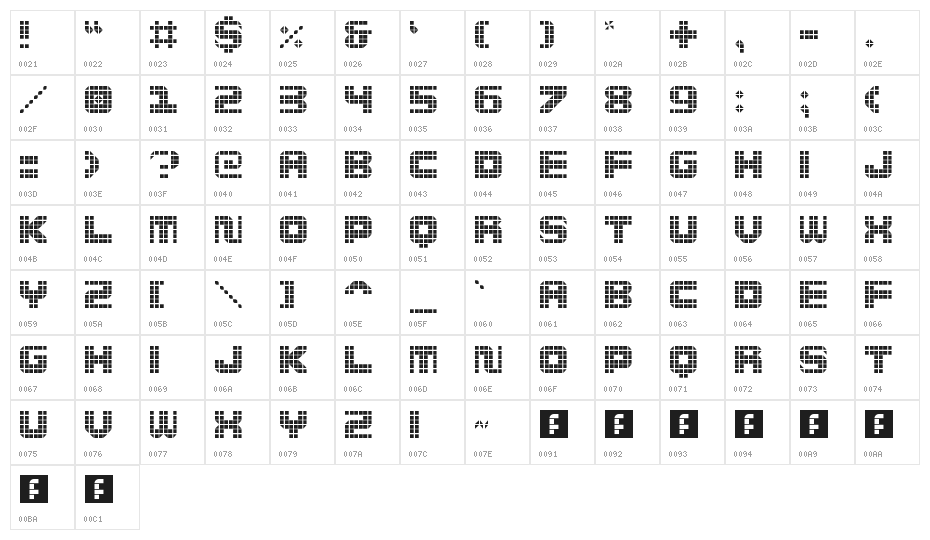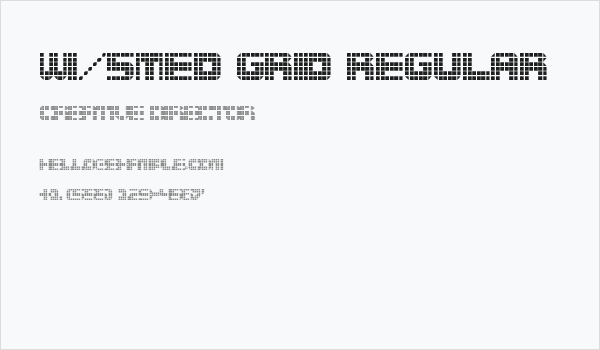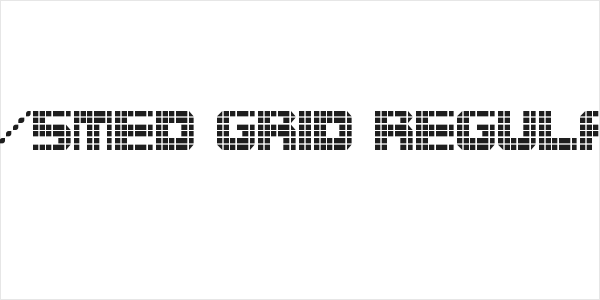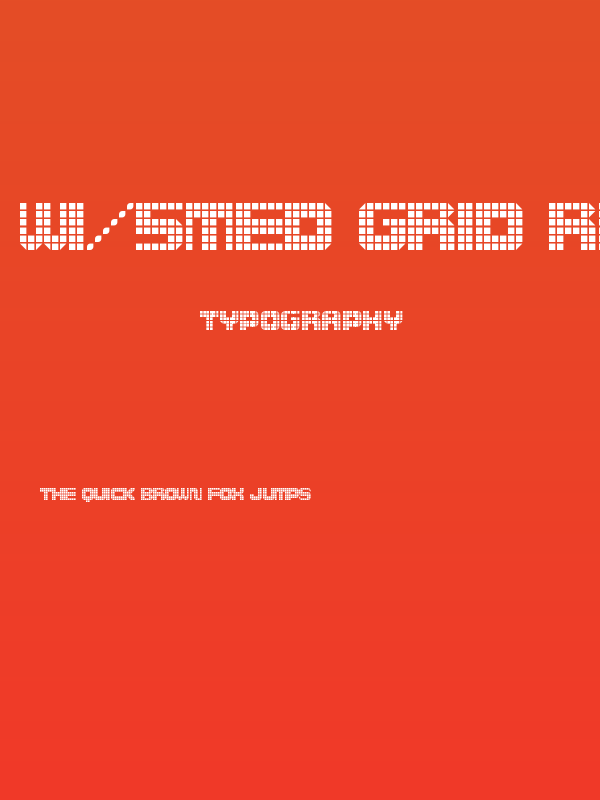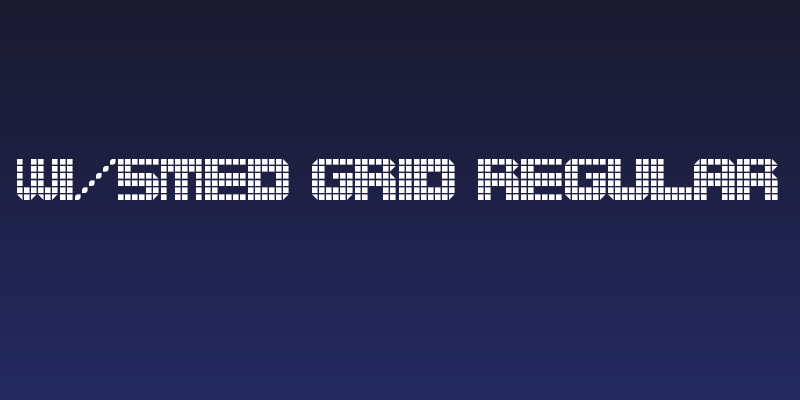
wi/5Med Grid Regular Font
wi/5Med Grid Regular Description
This font features a unique grid-based design, where each character is constructed from a series of small, evenly spaced squares. The geometric pattern gives it a digital and modern appearance, reminiscent of pixel art or LED displays. The characters are bold and distinct, ensuring high visibility and readability despite the unconventional style. The uppercase and lowercase letters maintain a consistent structure, while numbers and special characters follow the same grid pattern, providing a cohesive look across all elements. This font's design is both eye-catching and functional, making it suitable for various creative applications.
| Use Case | Headlines, Logos, Digital displays |
| Proposed Projects | Ideal for digital art projects, tech-themed designs, video game interfaces, and modern advertising campaigns. |